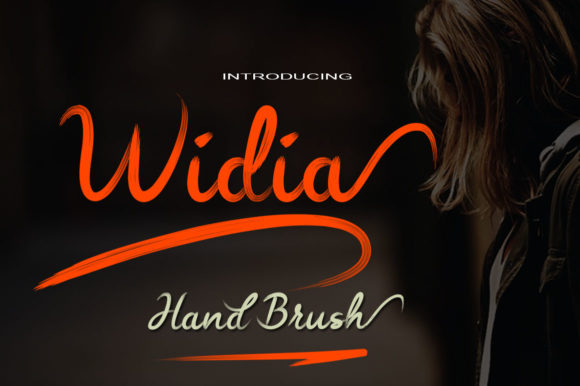
Indulge in the allure of Widia, a script font that captivates with its captivating strokes and undeniable charm.
Immerse yourself in its timeless elegance, a perfect fusion of contemporary and classic aesthetics. Experience the boundless possibilities that await, where your imagination takes flight and creativity flourishes.
Each letter, meticulously crafted by the visionary bbakey, exudes a sense of sophistication and grace. Its bold, brushed strokes evoke a sense of undeniable confidence, while its subtle nuances hint at a touch of whimsy.
Widia is not merely a font; it's an invitation to embark on an artistic journey. Allow its unique character to inspire your designs, ignite your passions, and elevate your creations to new heights. Whether you're a seasoned designer or a budding artist, Widia is the perfect companion, guiding you effortlessly through a world of typographic enchantment.
So, why settle for ordinary when you can embrace the extraordinary? Download Widia today and unleash the boundless creativity within you. Let your words dance with newfound elegance, and let your designs captivate the world with undeniable charm.
Unlock the limitless potential of Widia, where beauty and functionality intertwine. Experience the allure of a font that will forever hold a place in your creative heart.